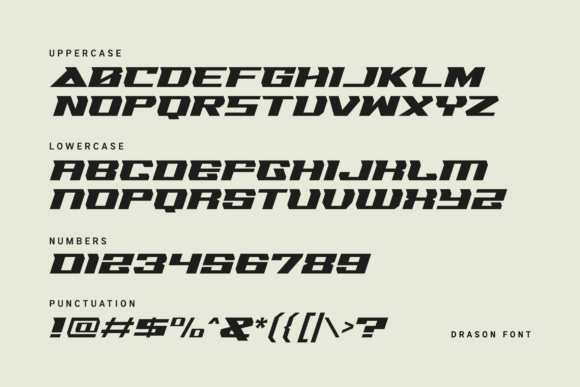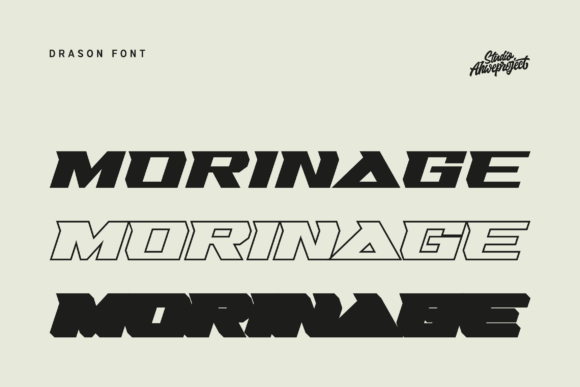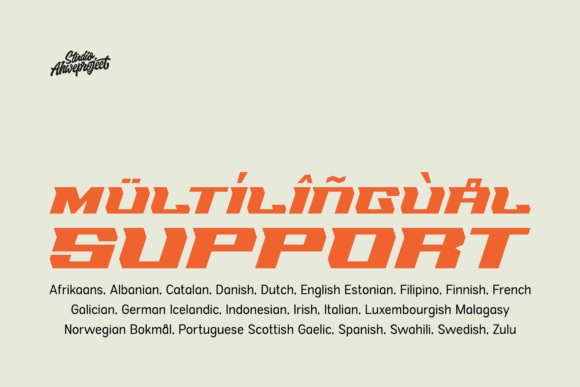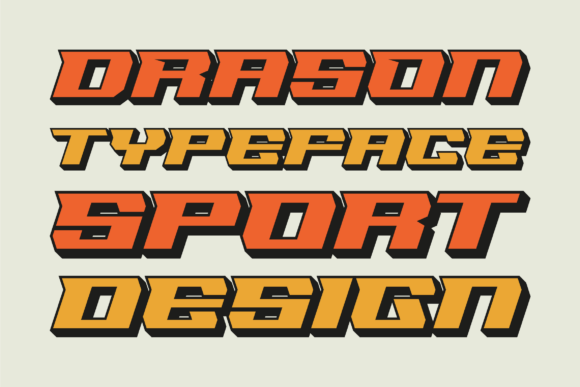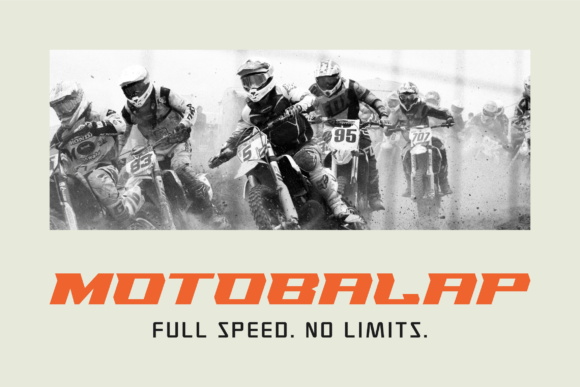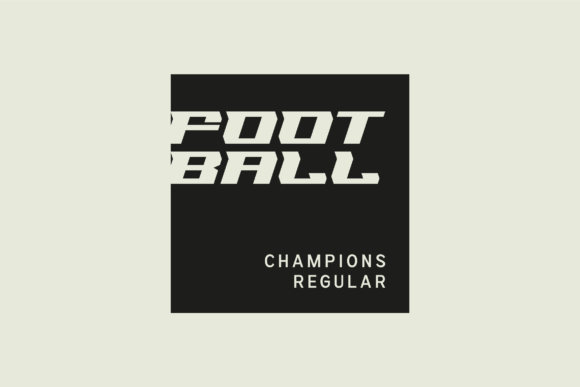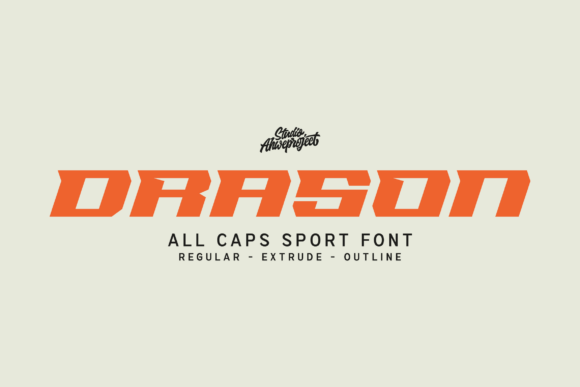
Unleash the Power of Drason Font: Elevate Your Designs with a Bold and Sporty Typeface
In the world of design, typography plays a crucial role in conveying the message and tone of a project. When it comes to creating bold and attention-grabbing designs, a font that exudes energy, speed, and confidence is essential. This is where Drason Font comes into play – a bold all-caps sport font designed to deliver strong impact and instant attention. In this article, we’ll dive into the features and benefits of Drason Font, and explore how it can elevate your designs to the next level.
Design and Features of Drason Font
Drason Font is built with a solid and dynamic structure, featuring sharp angles, aggressive shapes, and a modern athletic style. This typeface is perfect for sports branding, esports logos, racing posters, gym designs, automotive projects, and powerful YouTube thumbnails. The font comes in three styles – Regular, Extrude, and Outline – allowing you to easily create layered typography, 3D effects, and eye-catching compositions without extra effort.
Perfect for Sports and Esports Branding
Drason Font is specifically designed for sports and esports branding, making it an ideal choice for designers looking to create bold and impactful logos. The font’s sharp angles and aggressive shapes evoke a sense of speed, energy, and competition, perfect for teams, leagues, and events. Whether you’re designing a logo for a professional sports team or an esports organization, Drason Font is sure to make a statement.
One of the key benefits of Drason Font is its versatility in design. The font can be used for a wide range of projects, including jersey and merchandise design, racing and automotive posters, gym and fitness branding, and YouTube thumbnails. The Regular, Extrude, and Outline styles provide endless possibilities for creative experimentation, allowing you to push the boundaries of typography and design.
Key Benefits of Drason Font
- Bold and attention-grabbing: Drason Font is designed to deliver strong impact and instant attention, making it perfect for designs that need to stand out.
- Modern athletic style: The font’s modern athletic style makes it perfect for sports branding, esports logos, and fitness designs.
- Versatile: Drason Font can be used for a wide range of projects, from jersey and merchandise design to racing and automotive posters.
- Easy to use: The font comes in three styles, making it easy to create layered typography, 3D effects, and eye-catching compositions.
Who Can Benefit from Drason Font?
Drason Font is perfect for designers, crafters, and businesses looking to create bold and impactful designs. This includes:
- Graphic designers: Looking to create bold and attention-grabbing designs for clients or personal projects.
- Esports teams and organizations: Seeking a font that exudes energy, speed, and competition.
- Sports teams and leagues: Looking for a font that conveys strength, confidence, and athleticism.
- Automotive and racing teams: Seeking a font that evokes speed, power, and performance.
- Gym and fitness studios: Looking for a font that conveys energy, motivation, and athleticism.
| Font Name | Drason Font |
| Author | ahweproject |
In conclusion, Drason Font is a bold and sporty typeface that is perfect for designers looking to create impactful and attention-grabbing designs. With its sharp angles, aggressive shapes, and modern athletic style, this font is sure to elevate your designs to the next level. Whether you’re working on sports branding, esports logos, racing posters, or gym designs, Drason Font is the perfect choice. So why wait? Get ready to unleash the power of Drason Font and take your designs to new heights!